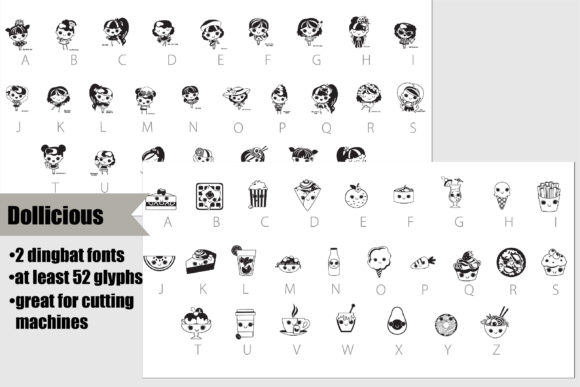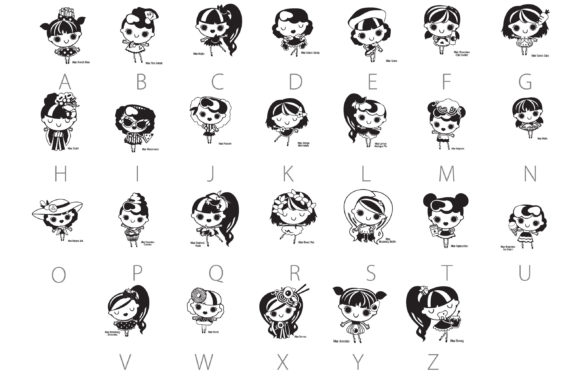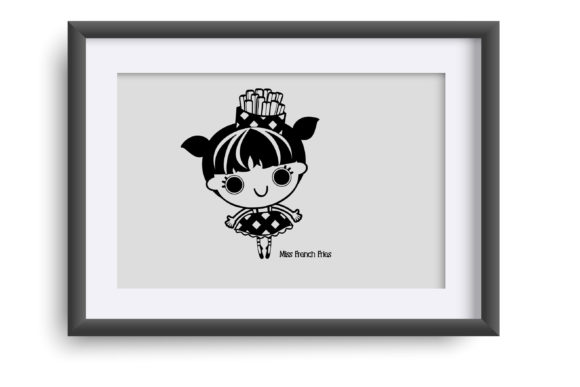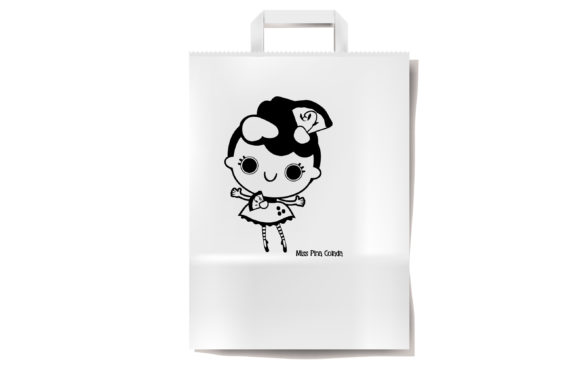
About Dollicious Font
The Dollicious bundle includes two delightful dingbat fonts that feature adorable dolls and their favorite foods. With multiple glyphs available in each font, they are perfect for adding a charming and whimsical touch to your projects, especially those related to food, dolls, or playful designs. These fonts are designed to be compatible with vinyl and cutting machines, making it easy to create unique designs and decorations.
The first dingbat font in the bundle showcases adorable dolls with their favorite foods. Each glyph represents a unique doll character, complete with cute outfits and accessories, along with the food they love. You’ll find dolls enjoying ice cream, pizza, cupcakes, and other delightful treats. These glyphs can be used individually or combined to create fun and playful designs for children’s products, party decorations, stickers, and more. They will add a touch of sweetness and whimsy to any project.
The second dingbat font in the bundle is focused on the theme of “dollicious” foods. It features glyphs representing various food items in a cute and playful style. You’ll find glyphs of burgers, fries, donuts, sushi, and more, all with adorable expressions and details. These glyphs can be used to create food-themed designs, restaurant menus, recipe cards, food packaging, and other culinary-related projects. They will bring a sense of fun and appetite appeal to your designs.
Both fonts in the Dollicious bundle are optimized for use with vinyl and cutting machines, allowing for precise and easy cutting of the designs. This makes them ideal for creating decorations, stickers, iron-on transfers, and other personalized items related to dolls and food. Whether you’re designing for a children’s party, a food-related event, or simply want to add a touch of cuteness to your crafts, these fonts offer a wide range of possibilities.
Feel free to mix and match the glyphs from each font to create unique combinations and compositions. Experiment with different colors, sizes, and layering techniques to bring your designs to life. With their versatility and compatibility with vinyl and cutting machines, these fonts allow you to unleash your creativity and create personalized and delightful designs.
In summary, the Dollicious bundle offers two dingbat fonts featuring adorable dolls and their favorite foods. With their multiple glyphs and compatibility with vinyl and cutting machines, these fonts are perfect for creating playful and charming designs, decorations, and personalized items. Let your imagination soar and bring a touch of sweetness and whimsy to your next project with the Dollicious bundle!